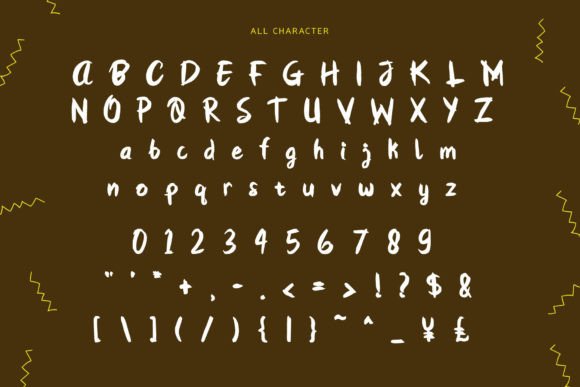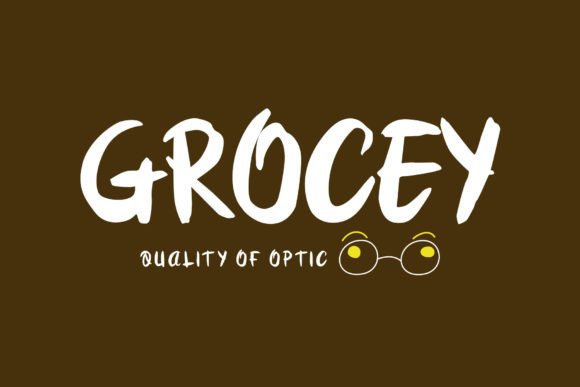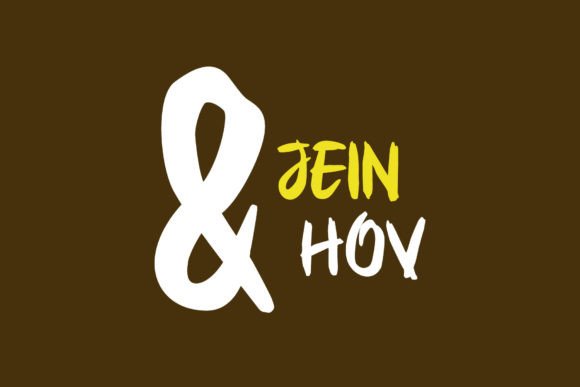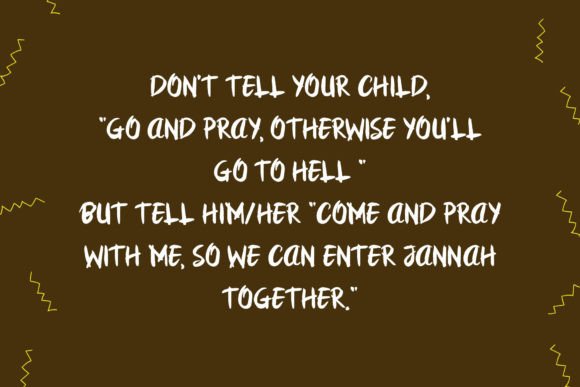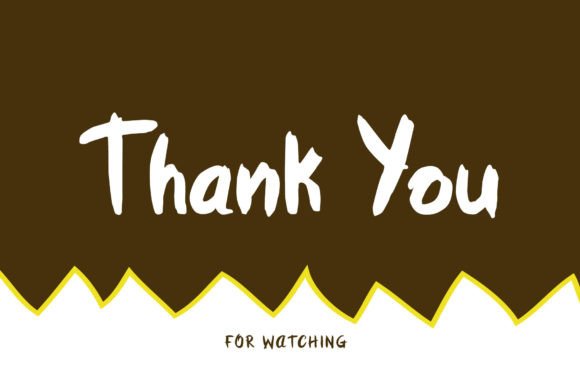
Introduction to Sefrinx Font
As you’re browsing through design inspiration boards, suddenly a stunning visual catches your eye – a beautiful handwritten logo or a quirky typographic quote. You can almost feel the creative spark igniting within you, urging you to bring this idea to life. The Sefrinx Font is one such gem that can elevate your design projects to the next level, offering a perfect blend of modernity and natural charm.
Whether you’re working on a creative project or simply looking for a high-quality font to complement your design needs, Sefrinx Font is an excellent choice. This attractive display font features a natural brush stroke, making it an ideal design resource for those who prefer a simple yet elegant aesthetic. With its transparent background, you can easily combine it with other design elements to create visually appealing compositions.
Key Features of Sefrinx Font
- Features a unique, elegant design with a transparent background, making it ideal for overlaying text on images or videos.
Honest Review: Sefrinx Font
As a designer, I’m always on the lookout for high-quality design resources that can elevate my creative projects. Recently, I stumbled upon the Sefrinx Font, and I’m excited to share my thoughts on it.
First, let’s talk about what works well. ✨ The Sefrinx Font is a beautifully crafted font with a unique, elegant design. It’s perfect for projects that require a touch of sophistication and refinement. The font is also highly customizable, making it easy to adjust to different color schemes and backgrounds.
Now, let’s talk about any limitations. ⚠️ While the Sefrinx Font is a high-quality design resource, it may not be suitable for projects that require a bold or playful font. Additionally, the font may not be compatible with all operating systems or software.
- High-quality design with a unique, elegant style
- Customizable and easy to use
- Transparent background ideal for minimalist designs
Transparent Background
The Sefrinx Font has a transparent background, making it ideal for use on images or backgrounds with intricate designs. This feature allows you to easily combine the font with other design elements and create a cohesive look.
To get the most out of the Sefrinx Font, experiment with different font sizes, colors, and combinations. You can also use it in conjunction with other design resources to create a unique and eye-catching design.
The Sefrinx Font is perfect for use in a variety of creative projects, including logos, business cards, brochures, and social media graphics. Its high quality and versatility make it a valuable addition to any designer’s toolkit.